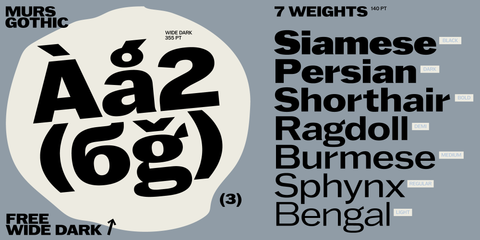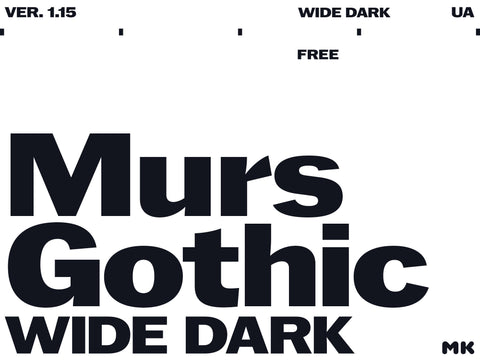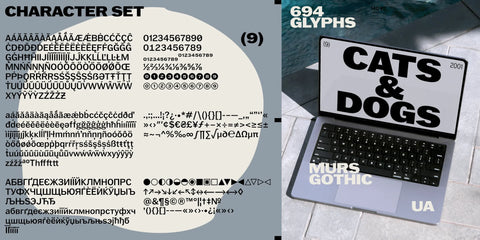
Murs Gothic Wide Dark Free Download
Murs Gothic Wide Dark – Free Bold Typeface Download
Say hello to Murs Gothic Wide Dark, a free download from Maksym Kobuzan’s bold, dynamic Murs Gothic typeface family.
This freebie lets you experience the power of its wide, dark style—a striking sans-serif font inspired by American Gothic designs of the 19th and 20th centuries. With sharp forms, tight spacing, and a heavy contrast, this typeface packs serious attitude into any project, making it perfect for bold headlines, logos, or eye-catching editorial designs.
But that’s just the beginning. Murs Gothic Wide Dark is just one style from the 56-style Murs Gothic Family. The full family offers a massive range of design flexibility with adjustable widths, weights, and italics—everything from ultra-thin to heavy-duty black. Whether you need clean, modern typography or a typeface that delivers playful, asymmetric details, Murs Gothic has it all.